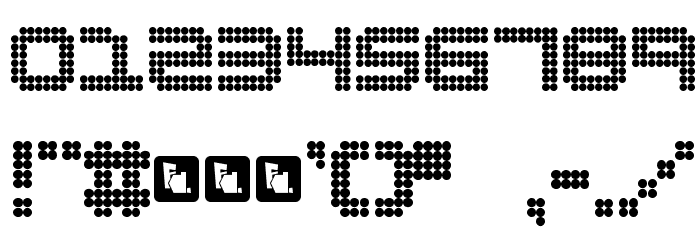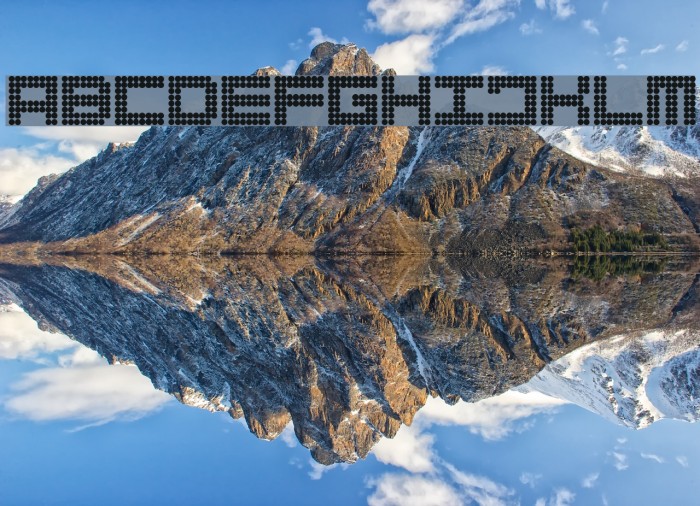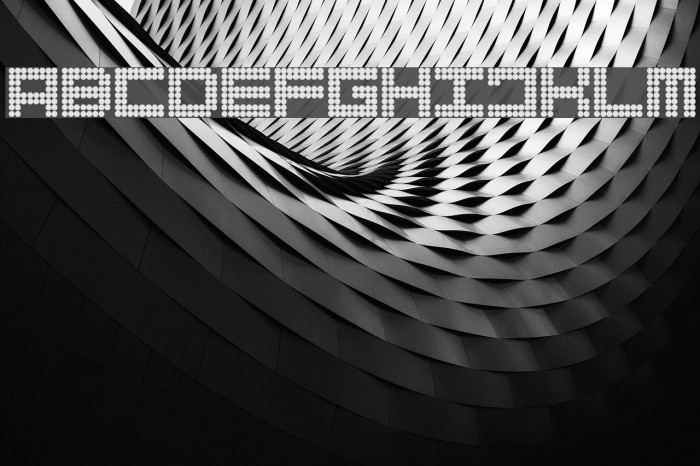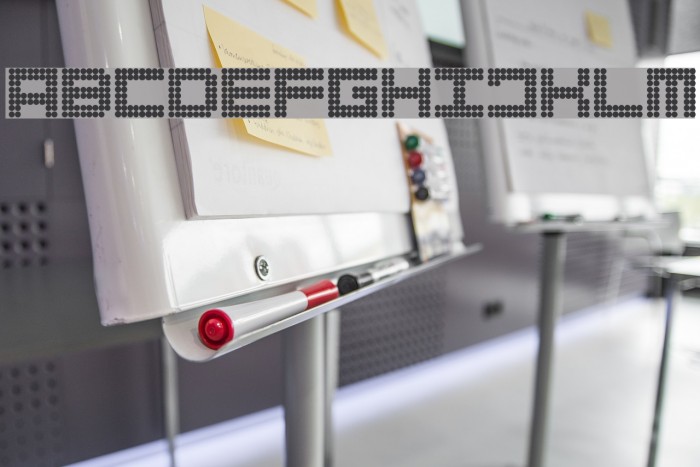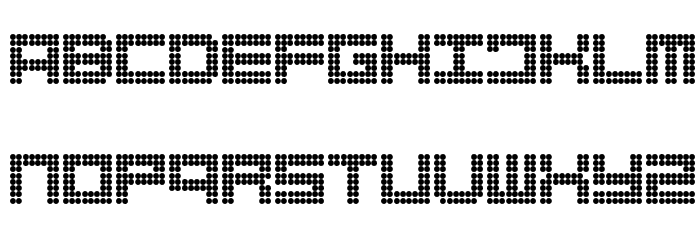
FD Spank Font
FD Spank Description
This font features a unique design composed entirely of small, evenly spaced dots forming each character. The geometric arrangement gives it a digital, pixelated appearance reminiscent of early LED displays or dot matrix printers. Each letter and number is constructed with precision, maintaining a consistent grid pattern that enhances readability while providing a distinct visual style. The uniformity in dot size and spacing creates a cohesive look across all characters, including special symbols. This design is both modern and retro, capturing a sense of technological nostalgia.
| Overall Style | Modern, Retro |
| Use Case | Headlines, Logos, Digital displays |
| Proposed Projects | Ideal for digital displays, retro-themed designs, tech branding, and creative posters. |